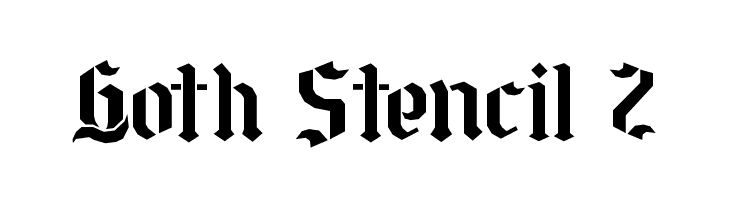
A bold, rugged font with irregular, angular letterforms and a hand-cut appearance.
Celestial-themed dingbat font with sun and moon icons.
A bold, playful font with a spooky Halloween theme.
A playful, handwritten font with a casual and friendly vibe.
A playful, casual handwritten font with uneven strokes and a lively feel.
A bold, three-dimensional block font with a modern, impactful style.
A bold, decorative font with a retro, Art Deco-inspired style.
A bold, futuristic font with geometric shapes and a modern aesthetic.
A futuristic, bold font with geometric and angular shapes.
A bold, playful font with rounded edges and a cartoonish style.
A playful, hand-drawn font with irregular shapes and whimsical style.
A dotted, textured font with a playful and abstract style.
A playful, decorative font with floral and springtime motifs.
A modern, italic font with sharp, geometric characters and subtle contrast.
A bold, blackletter-style font with sharp, angular lines and a dramatic presence.
An elegant and ornate decorative font with intricate swirls and flourishes.
A bold, playful font with rounded edges and a lively style.
A dynamic, italicized font with a handwritten style and smooth, continuous strokes.
A playful, rounded font with a cursive-like style, perfect for informal and educational uses.
A bold, graffiti-inspired font with jagged edges and dynamic strokes.
A bold, italicized font with a futuristic and dynamic style.
A bold blackletter font with sharp, angular lines and dramatic serifs.
A whimsical, cartoon-style font with expressive square-shaped characters.
Bold, italicized font with a modern and dynamic style.